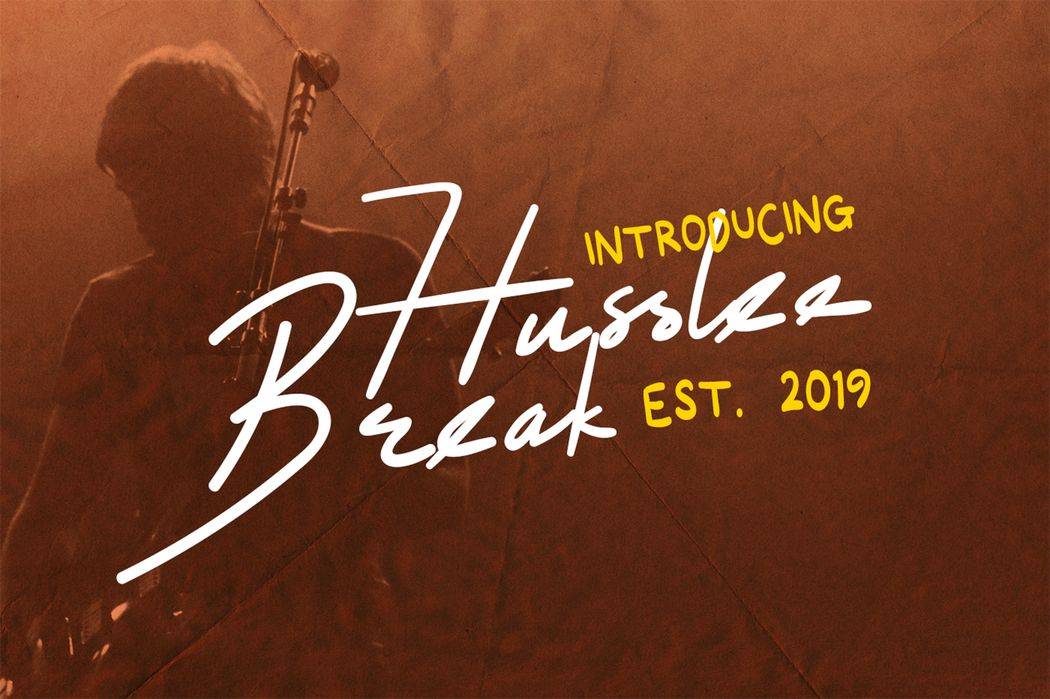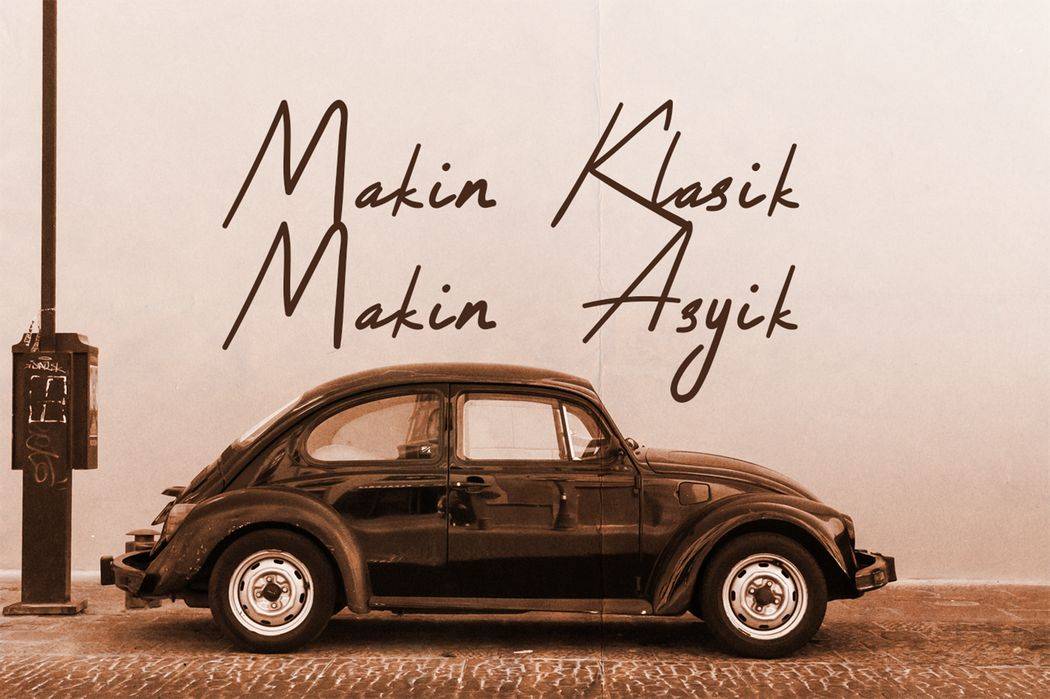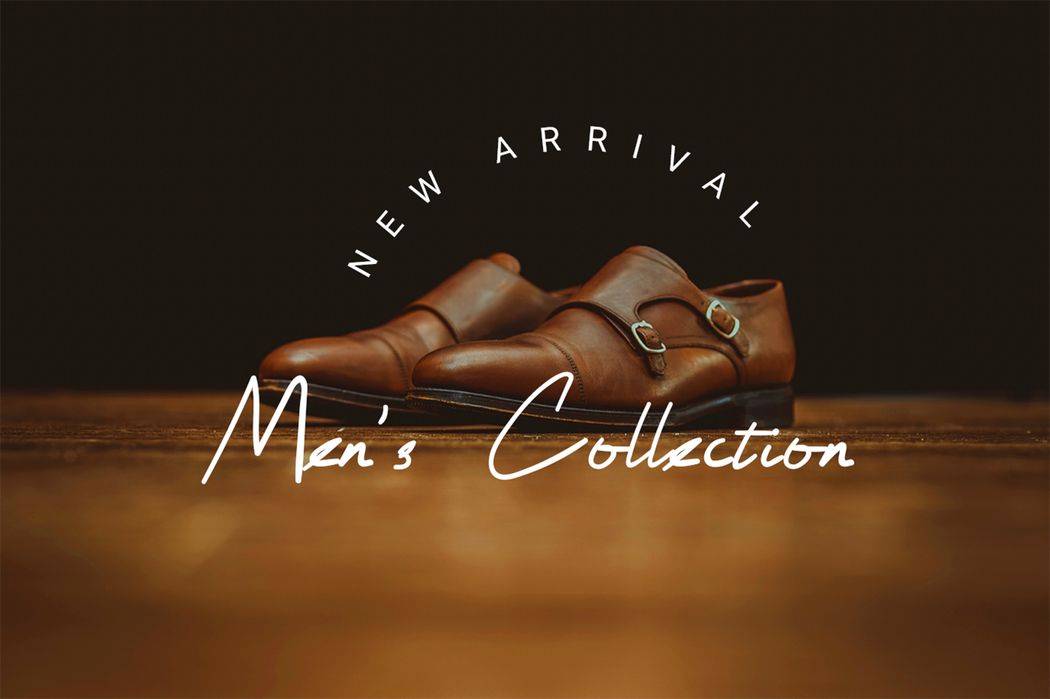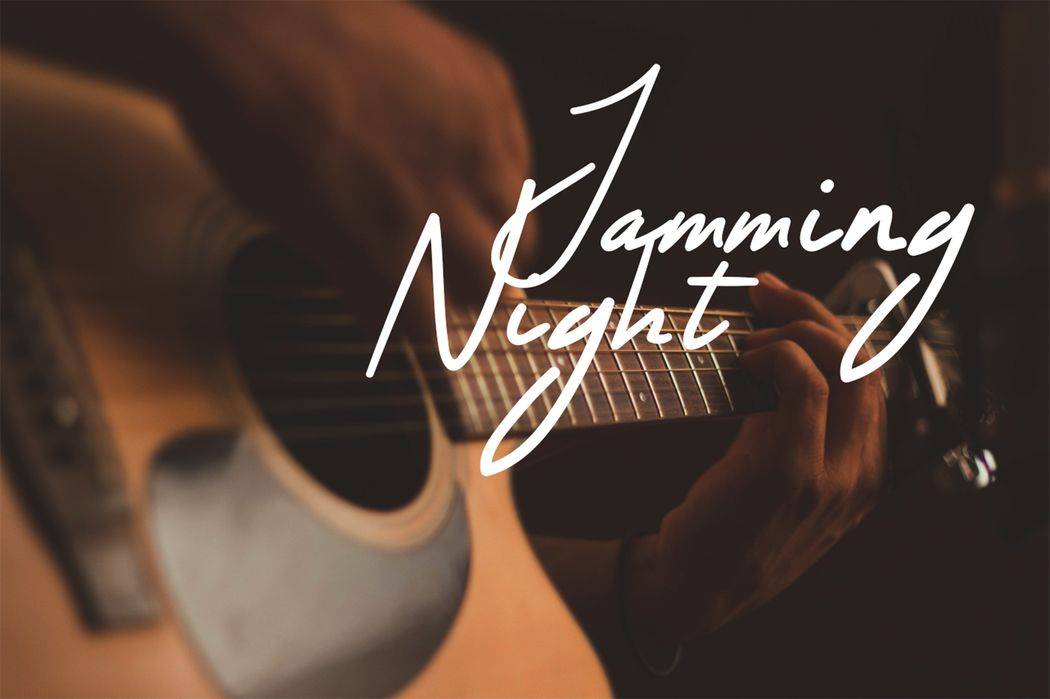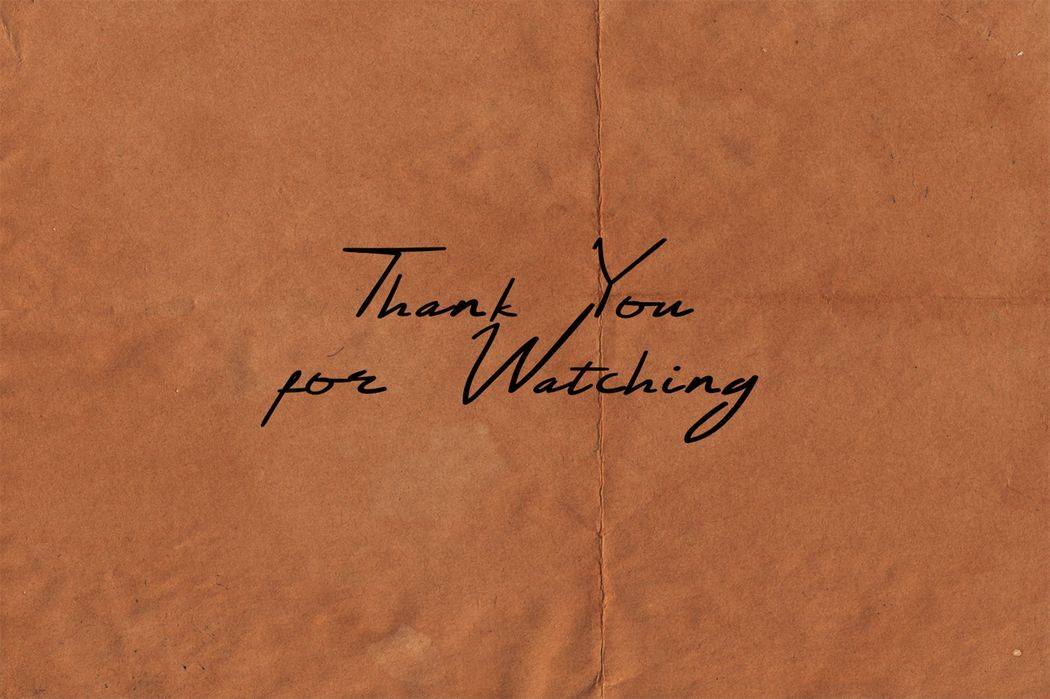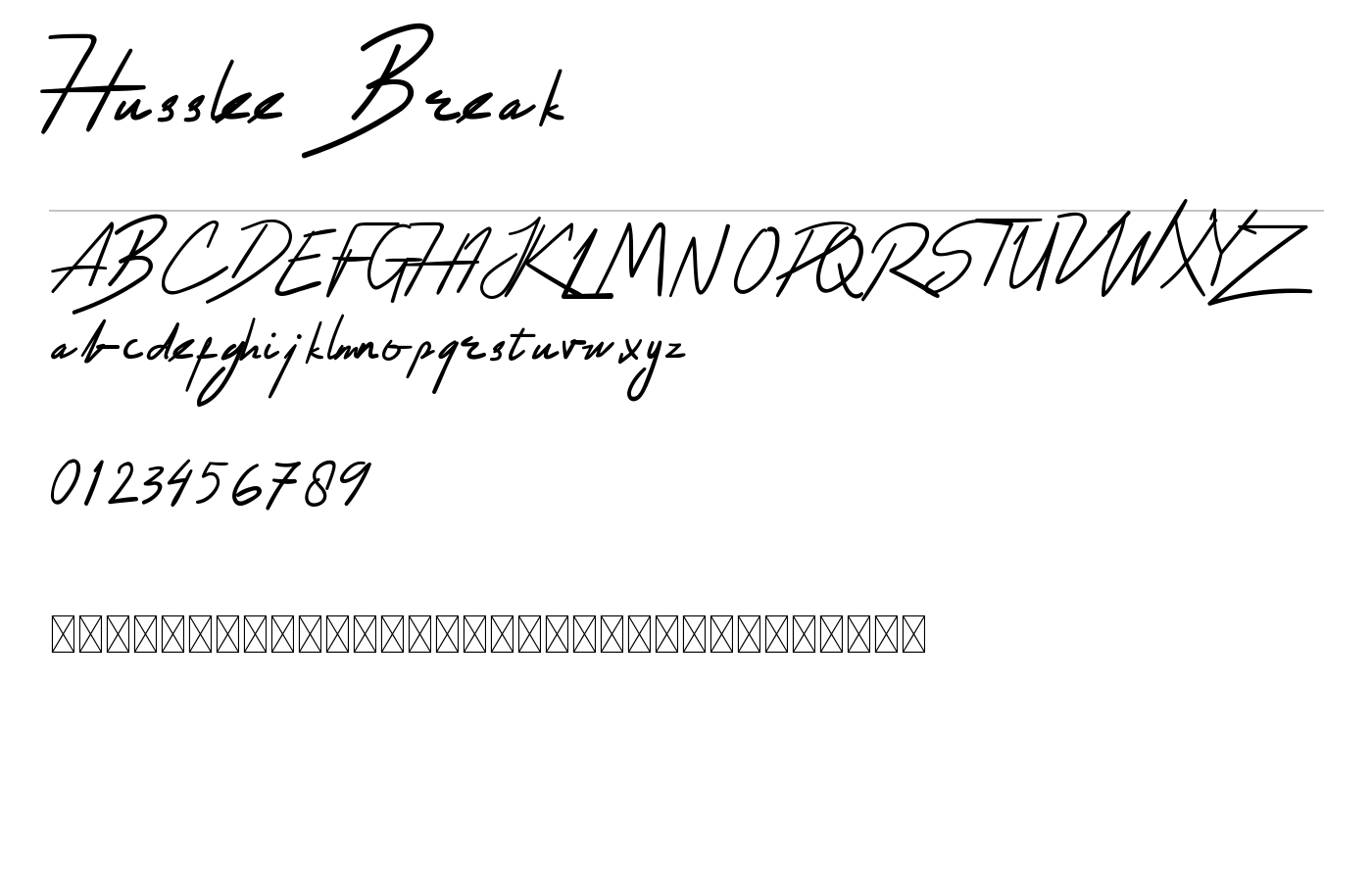
Husslee Break is a dynamic, handwritten script font that captures a casual yet sophisticated vibe with its slender, slightly slanted letterforms and smooth, fluid strokes. Its airy spacing and natural flow make it ideal for creative projects needing a personal, expressive touch, such as fashion branding, logos, or stylish editorial headlines. This font works well when you want to convey authenticity and elegance with a modern, handwritten charm.
Husslee Break Font
About Husslee Break Font
| Font family | Husslee Break Font |
| Release date | 2019-12-12 |
| Designer | Letterature Std. |